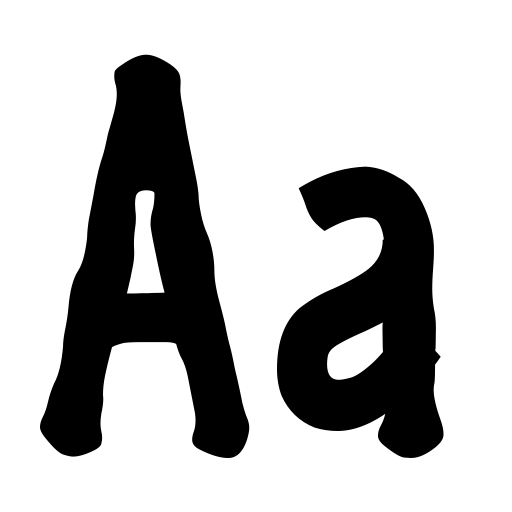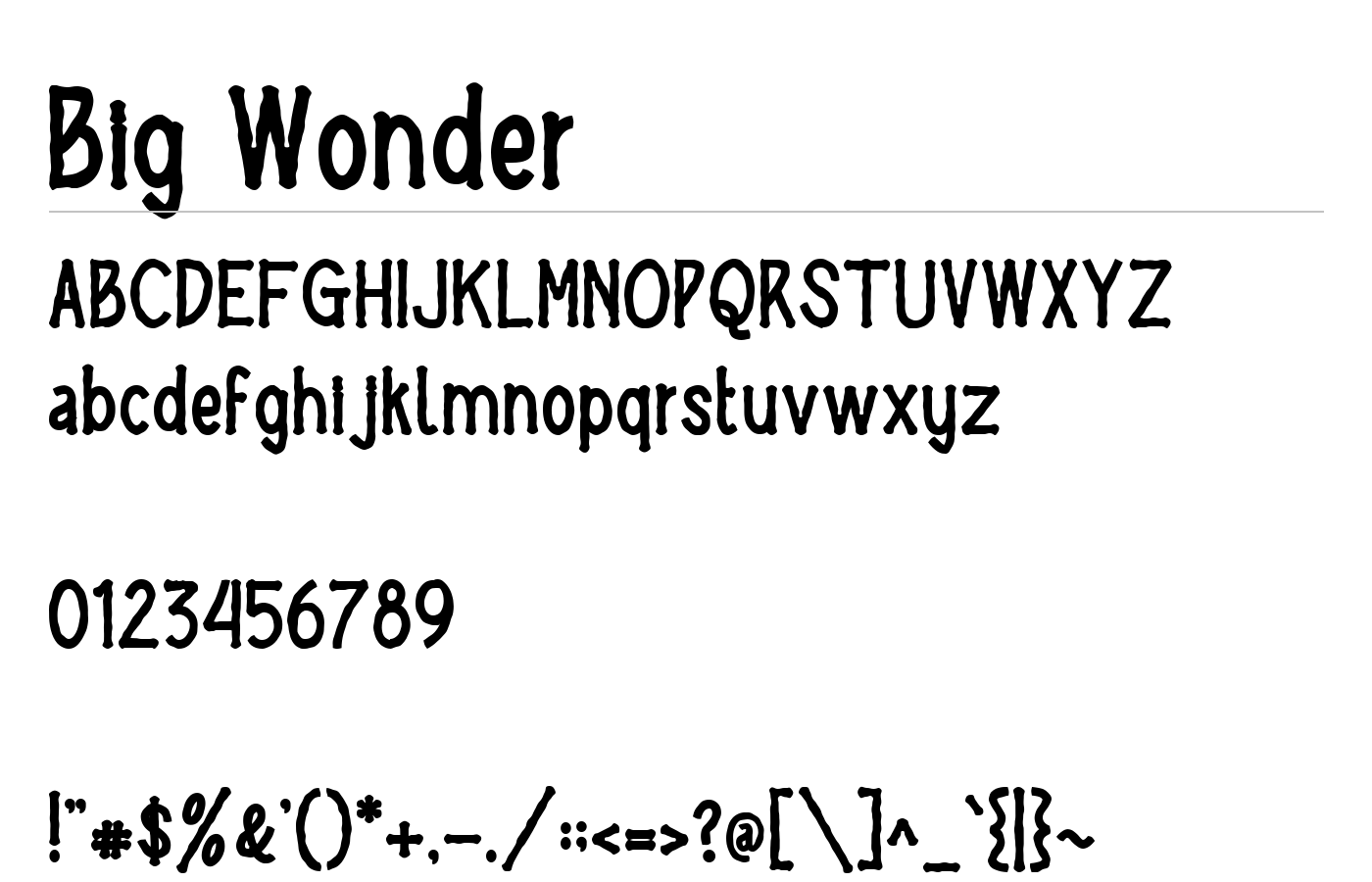
Big Wonder is a playful, hand-drawn sans serif font with a casual, slightly quirky charm. Its irregular, rounded letterforms and medium weight make it approachable and fun, perfect for creative projects, children's books, and informal branding that wants to convey friendliness and originality. This font works well in headlines and display uses where a unique, handmade feel is desired.
Big Wonder Font
About Big Wonder Font
| Font family | Big Wonder Font |